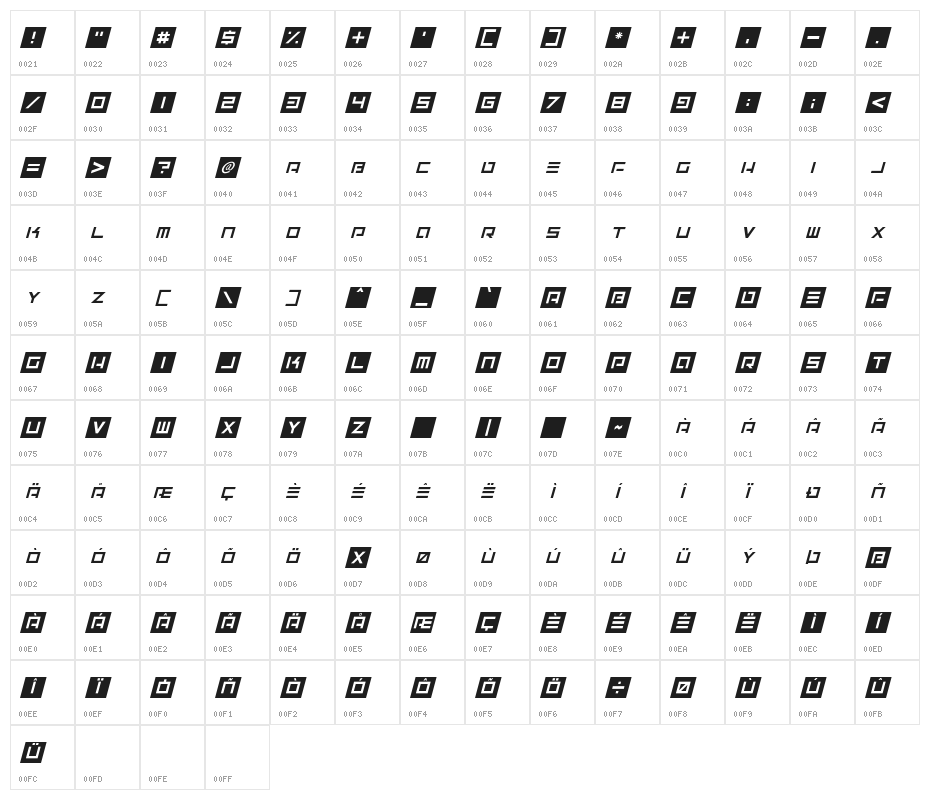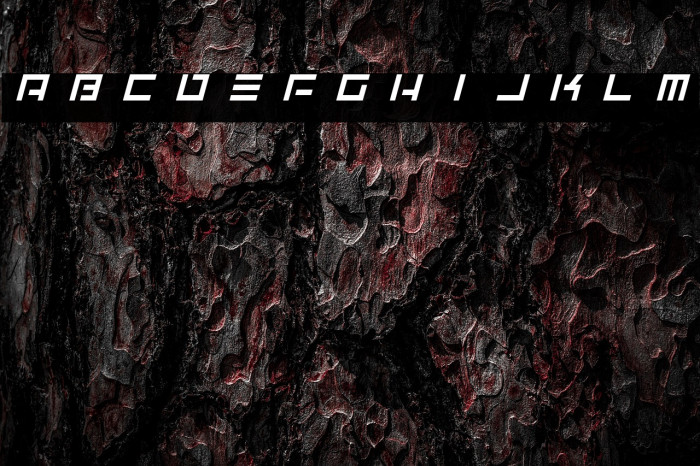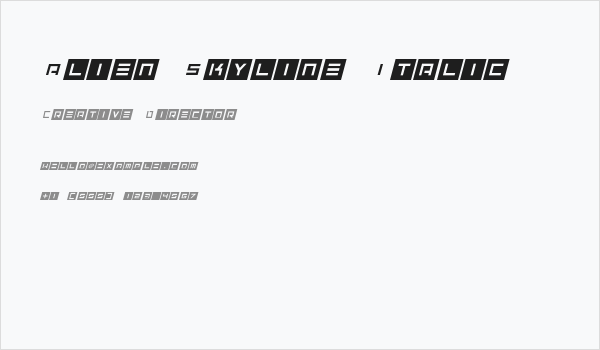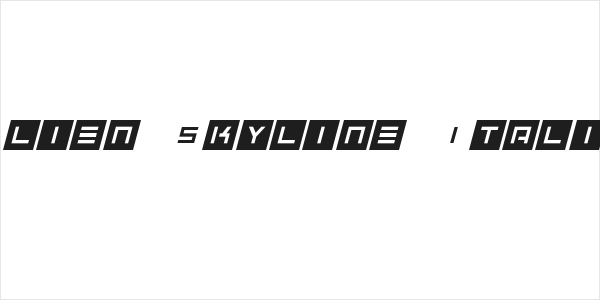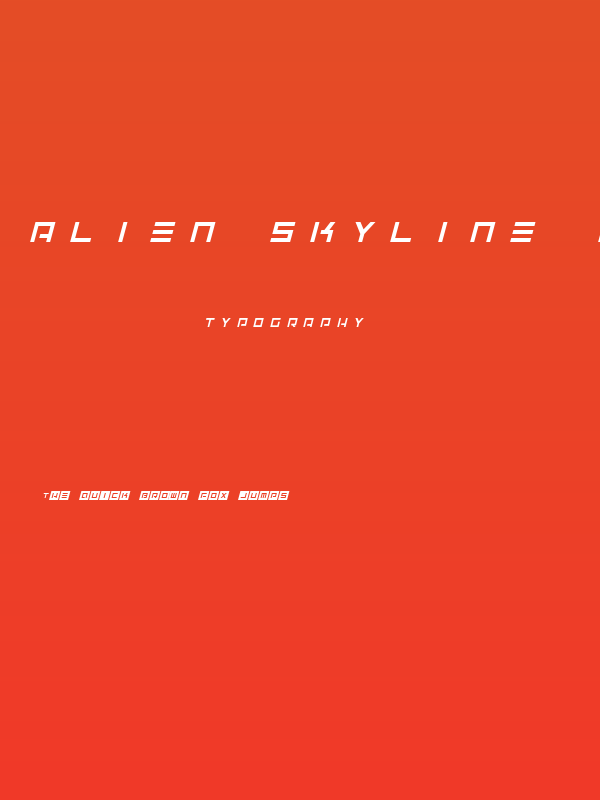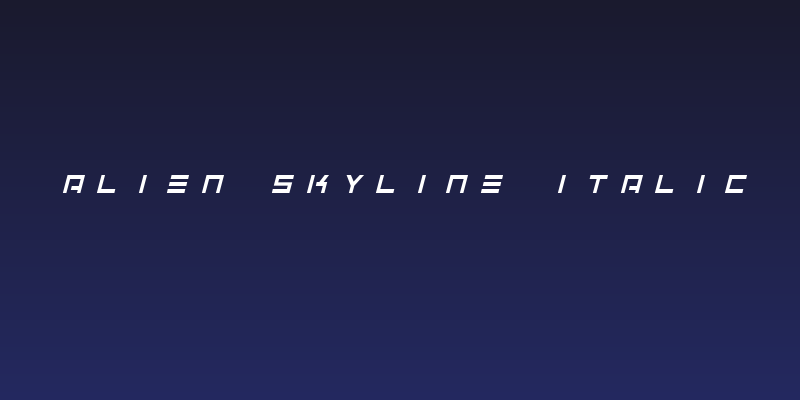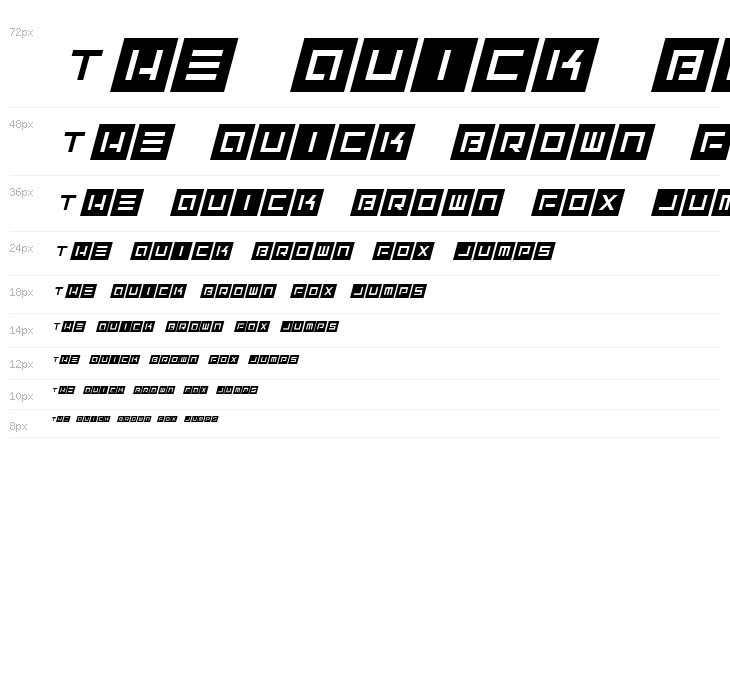
Alien Skyline Italic Font
Alien Skyline Italic Description
This font features a futuristic and angular design, characterized by its sharp edges and italicized form. The uppercase letters are distinct with a slanted orientation, giving a sense of motion and speed. The lowercase letters maintain the same angular style, ensuring consistency throughout the typeface. The numbers and special characters are also designed with the same geometric precision, making them stand out. This font is particularly suitable for projects that require a modern and edgy look, such as sci-fi themed designs or tech-related branding.